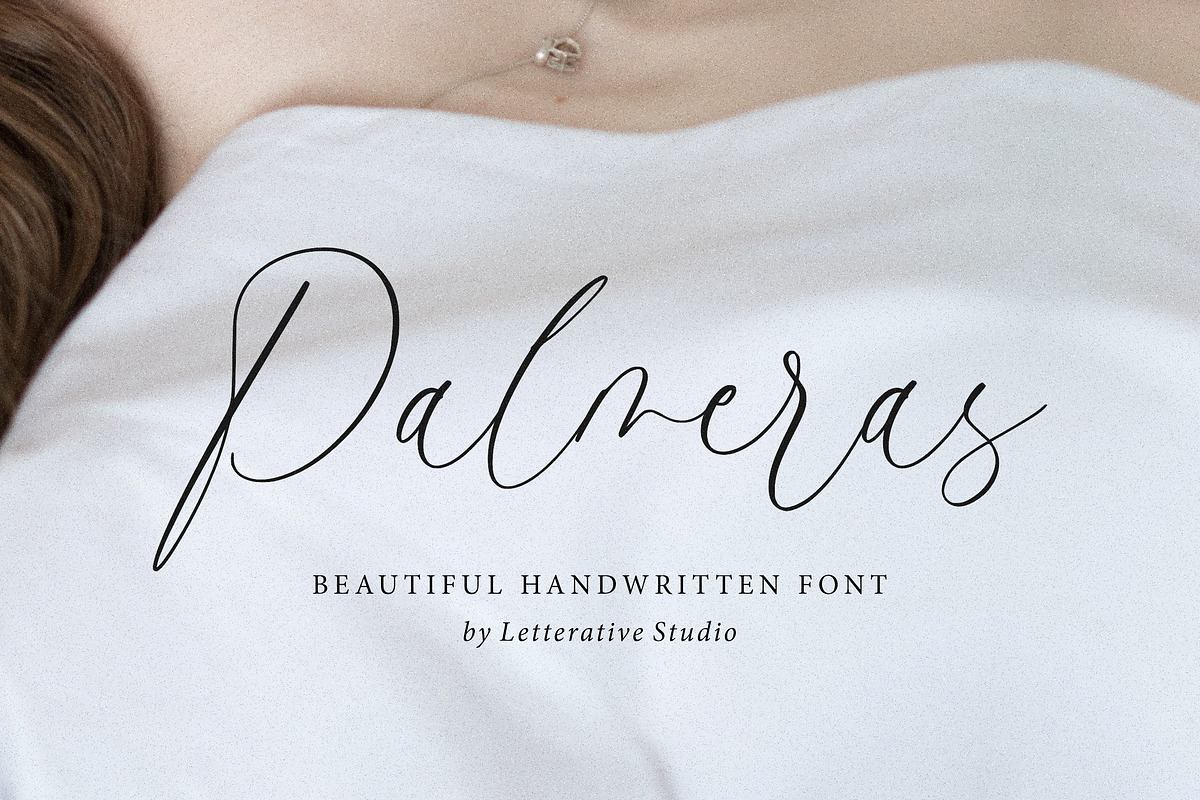
Palmeras Beautiful Handwritten Font Free Download
Palmeras Beautiful Handwritten Font Free Download is a charming and elegant script font that brings a natural, personal touch to any design. With its smooth, flowing lines and carefully crafted strokes, this font is perfect for wedding invitations, social media graphics, beauty branding, personal logos, and heartfelt stationery.
Designed to look effortlessly handwritten, Palmeras adds warmth and authenticity to your projects. Its graceful curves and balanced rhythm make it both stylish and highly readable, making your messages feel more intimate and expressive.